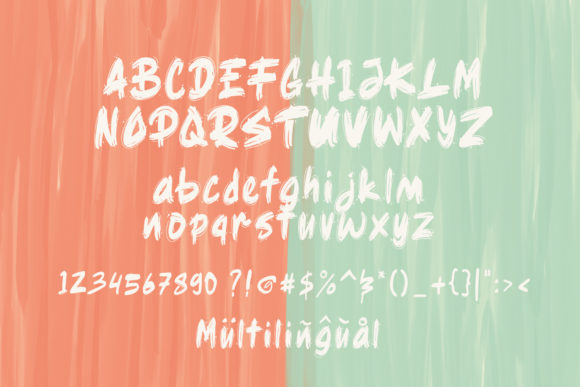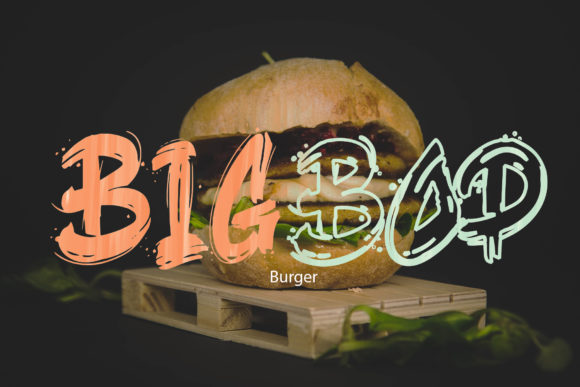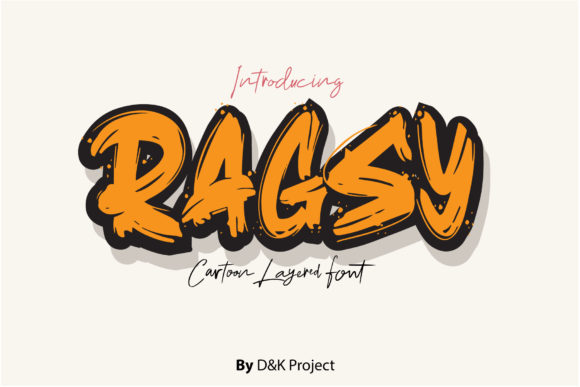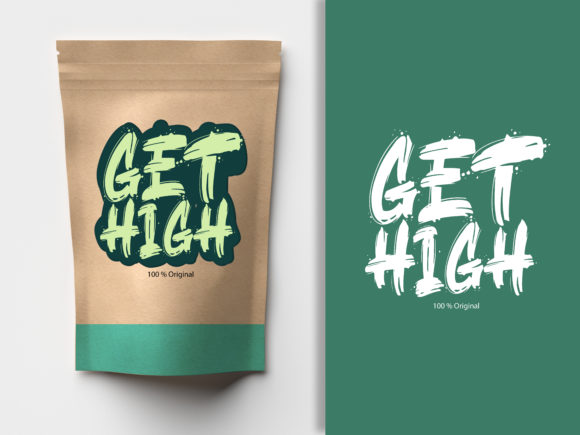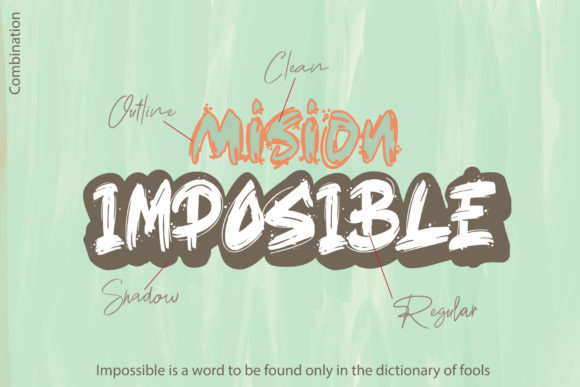
Introduction to Ragsy Font
Ragsy is an incredibly cute and lovely display font with a unique feel.
Use it to add a playful twist to any design project .